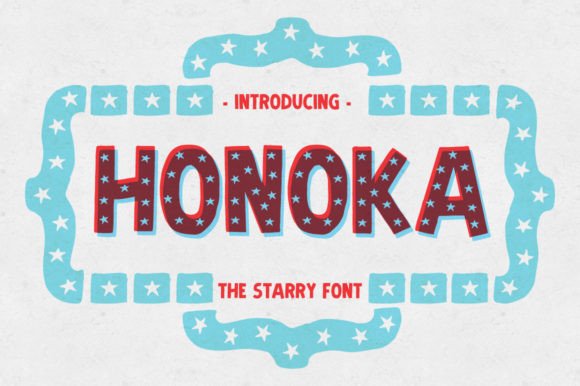
**Honoka: A Whimsical Typeface for a Touch of Magic**
Introducing Honoka Font, the ultimate display typeface that will ignite your imagination and captivate your audience. This enchanting font boasts two captivating styles, "Regular" and "Starry," providing endless possibilities for your creative endeavors.
Honoka's playful and inviting nature makes it an exceptional choice for projects geared towards kids and teens. Its charming strokes create a delightful ambiance that will engage young minds and leave a lasting impression. But its versatility extends beyond the realm of children, as it also lends a touch of whimsy to scrapbooking, branding, websites, and digital media.
Picture your brand adorned with Honoka's unique character, attracting attention and evoking a sense of wonder. Your packaging designs will transform into magical realms, enticing customers with its captivating presence. Honoka breathes life into greetings, apparel, merchandise, and personal cards, adding a touch of enchantment to every interaction.
Its versatility knows no bounds, extending to invitations, postcards, calendars, wrapping papers, and more. Unleash your creativity and let Honoka's magic touch elevate your designs to extraordinary heights. From enchanting stickers to captivating posters and logos, Honoka empowers you to create a visual experience that is both unforgettable and enchanting.